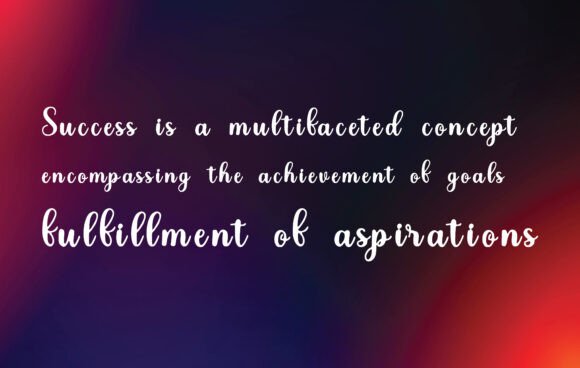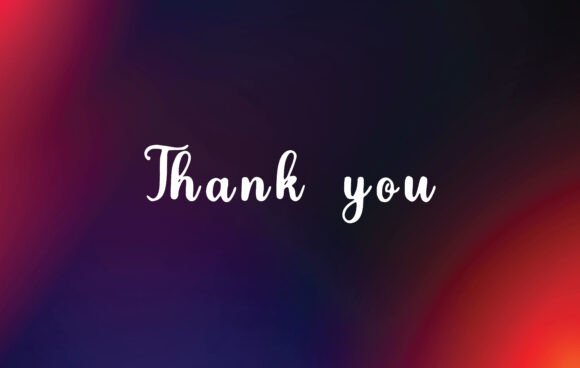
Introduction to Rhinoceros Font
Rhinoceros is a lovely and beautiful handwritten font.
Key Features of Rhinoceros Font
Why Choose Rhinoceros Font?
Rhinoceros Font offers exceptional quality and versatility, making it a valuable addition to your design toolkit. Whether you’re creating for personal projects or commercial use, Rhinoceros Font delivers professional results.